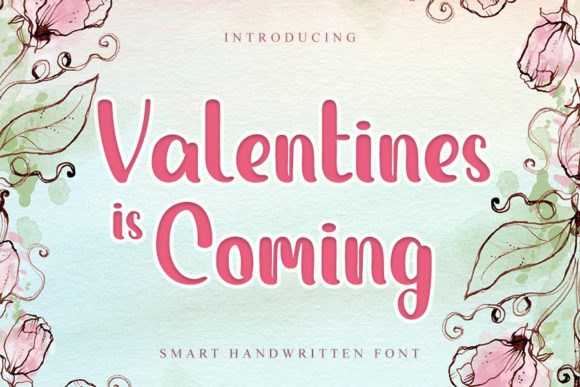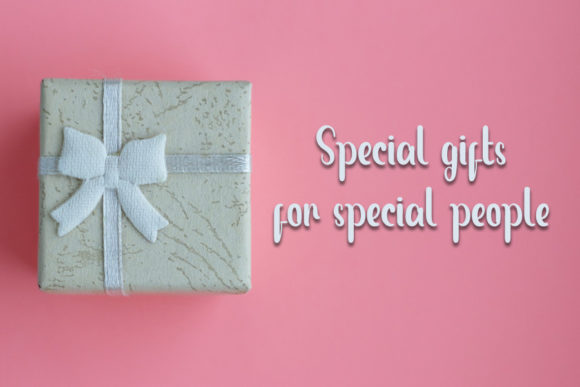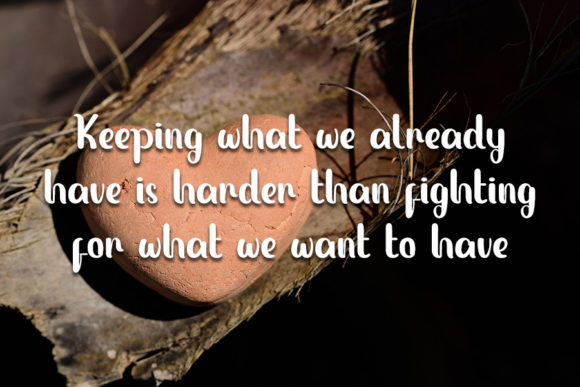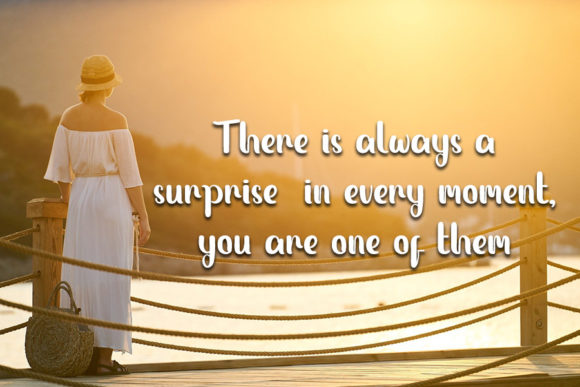
About Valentines is Coming Font
Valentines is Coming is a stylish handwritten font with a contemporary atmosphere and impeccable form, inspired by a timeless classic calligraphy. Not too thin and not too thick, balanced and varied, this font was designed to enhance the beauty of your projects.